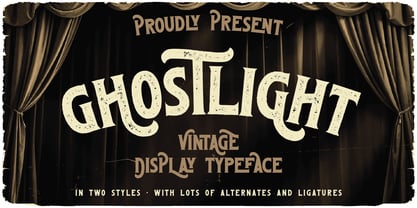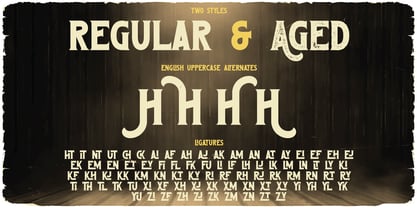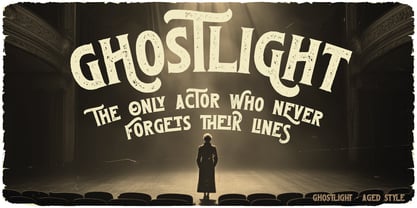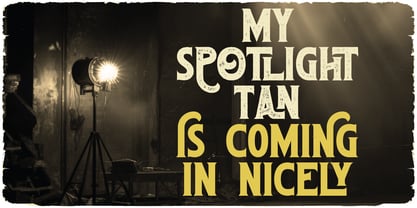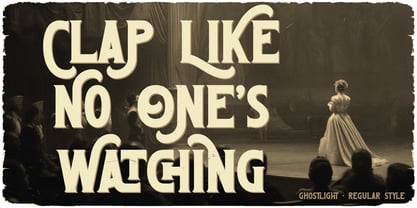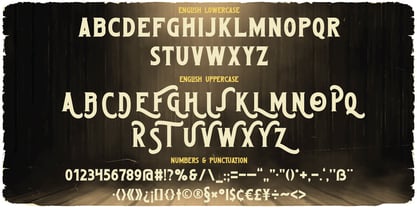
Ghostlight
by Vozzy
The Ghostlight Font Family was designed by Oleg Voznyy and published by Vozzy. Ghostlight contains 2 styles and family package options. More about this family
Introducing "Ghostlight," a distinctive font designed to elevate your headlines and accent inscriptions while capturing attention effortlessly. This versatile typeface includes a rich array of additional characters, punctuation marks, and multilingual options, making it perfect for diverse design needs. With numerous alternate characters available, ensure your software supports this OpenType feature to fully utilize its capabilities. "Ghostlight" will enhance your stunning designs, adding a touch of uniqueness and flair that stands out in branding, web design, and editorial projects.
Designers: Oleg Voznyy
Foundry: Vozzy